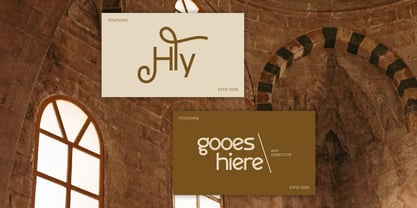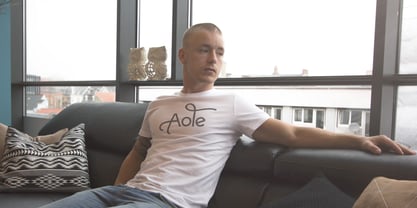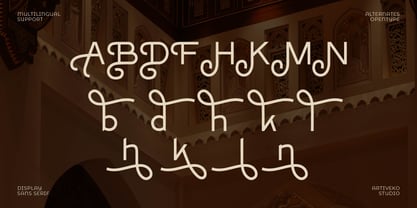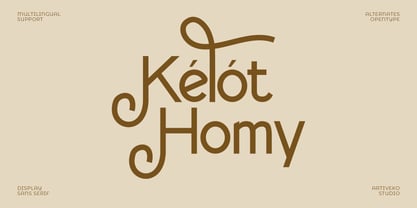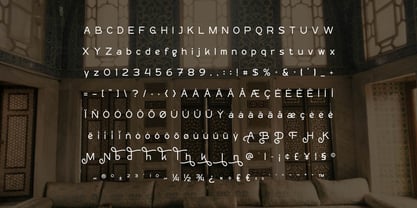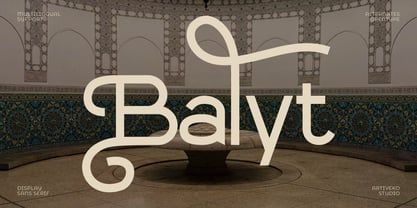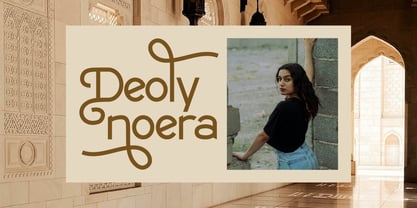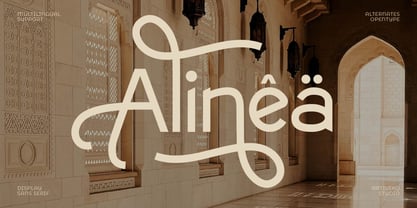
Balyt
La famille de polices Balyt a été conçue par Iwan Alwan et publiée par Artiveko. Balyt contient 2 styles et options de package familial. En savoir plus sur cette famille
Balyt is a meticulously crafted sans serif font that seamlessly blends minimalist precision with unique decorative elements. Designed for the modern creator, it features clean, geometric lines punctuated by subtle artistic flourishes, giving your typography a distinct, high-end personality. Whether you're working on minimalist branding, editorial layouts, or futuristic UI designs, Balyt provides exceptional legibility without sacrificing character. Its balanced proportions and sophisticated "decorative-yet-clean" aesthetic make it a versatile powerhouse for logos, social media headers, posters, and luxury packaging. Elevate your creative projects with a typeface that embodies both clarity and contemporary style, making it ideal for branding, web design, and editorial use.
Artiveko is a font design team based in Indonesia, comprised of several talented font designers who commenced their careers in the font design industry in 2020. With a dedicated focus on crafting fonts, the team members bring their collective expertise and passion to every project they undertake. Situated in Indonesia, Artiveko draws inspiration from the vibrant cultural landscape of the region, infusing their creations with unique flavors and aesthetics.The team's font collection encompasses a diverse range of styles, including serif, sans serif, handwritten, and script typefaces. Each typeface is meticulously crafted to meet the demands of modern design while offering versatility and functionality across various applications. Whether it's the classic elegance of serif fonts, the contemporary appeal of sans serif designs, the personal touch of handwritten scripts, or the expressive flourishes of script fonts, Artiveko ensures that every font reflects their dedication to quality and innovation.Artiveko's fonts have garnered recognition and acclaim, with their works being featured on prominent social media platforms like Creative Market. Through these platforms, the team has been able to connect with a global audience of designers and typographers, further amplifying their reach and influence in the industry. Their fonts are celebrated for their impeccable craftsmanship, attention to detail, and ability to elevate design projects with style and sophistication.As Artiveko continues to evolve and expand its font collection, the team remains committed to pushing the boundaries of typography and setting new standards of excellence. With a relentless focus on creativity, innovation, and collaboration, Artiveko strives to inspire and empower designers around the world with their distinctive and versatile font designs.